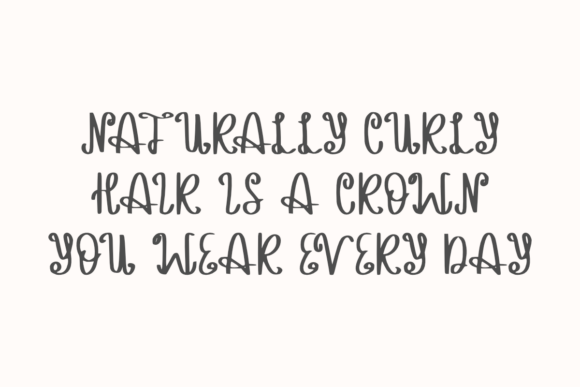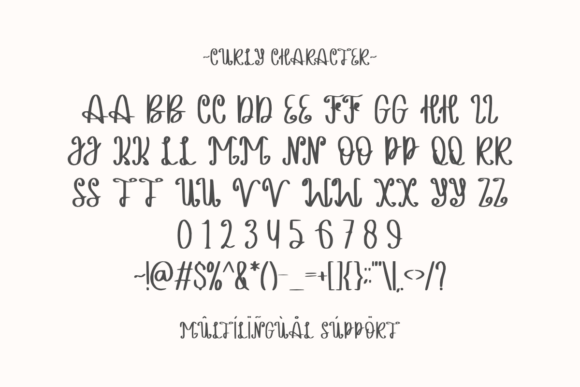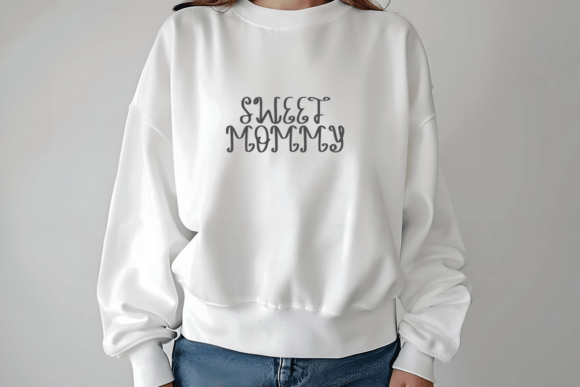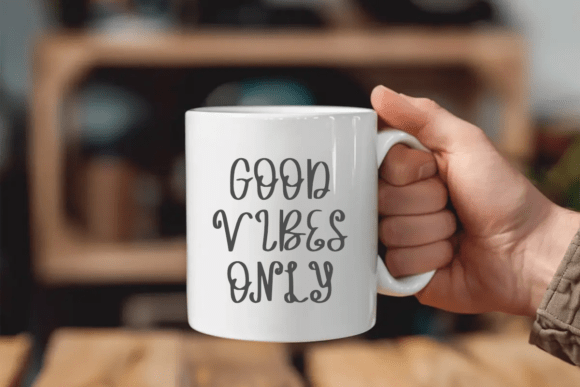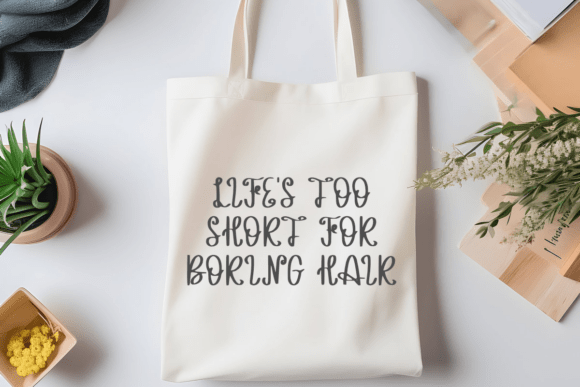
Introducing Curly Font: The Perfect Handwriting Font for Creative Moms
Are you a creative mom who loves DIY projects, journaling, and crafting with your Cricut machine? Look no further! We’re excited to introduce Curly Font, a cute and playful handwriting font that’s perfect for planners, stickers, cards, quotes, and craft projects. In this article, we’ll explore the features and benefits of Curly Font, and show you how it can elevate your creative projects.
What is Curly Font?
Curly Font is a handwriting font that’s designed to add a touch of whimsy and playfulness to your projects. With its curly and swirly letters, this font is sure to capture the hearts of creative moms who love making things by hand. Whether you’re creating a planner, a sticker, or a card, Curly Font is the perfect choice for adding a personal touch.
Features of Curly Font
- Cute and Playful: Curly Font is designed to be fun and playful, making it perfect for projects that require a personal touch.
- Handwriting Style: This font is a true handwriting font, with each letter carefully crafted to resemble handwritten script.
- Versatile: Curly Font can be used for a wide range of projects, from planners and stickers to cards and quotes.
- Easy to Read: Despite its curly and swirly design, Curly Font is easy to read, making it perfect for projects that require a clear and legible font.
Benefits of Using Curly Font
So why should you choose Curly Font for your projects? Here are just a few benefits of using this adorable font:
- Adds a Personal Touch: Curly Font adds a personal touch to your projects, making them feel more handmade and special.
- Perfect for DIY Projects: This font is ideal for DIY projects, such as crafting, journaling, and scrapbooking.
- Great for Cricut Crafts: Curly Font is a great choice for Cricut crafts, such as cutting out letters and words for signs, cards, and other projects.
- Inspires Creativity: With its playful and whimsical design, Curly Font is sure to inspire creativity and encourage you to try new things.
Using Curly Font in Your Projects
So how can you use Curly Font in your projects? Here are a few ideas to get you started:
- Planners: Use Curly Font to add a personal touch to your planner, including headings, titles, and notes.
- Stickers: Create custom stickers with Curly Font, perfect for decorating your journal or planner.
- Cards: Use Curly Font to create beautiful and personalized cards for special occasions.
- Quotes: Add Curly Font to your favorite quotes, making them perfect for displaying in your home or office.
Tips and Tricks for Working with Curly Font
Here are a few tips and tricks for working with Curly Font:
- Experiment with Sizes: Try out different sizes of Curly Font to see what works best for your project.
- Pair with Other Fonts: Pair Curly Font with other fonts to create a unique and interesting look.
- Use in Combination with Images: Use Curly Font in combination with images, such as photos or illustrations, to add an extra layer of interest.
In conclusion, Curly Font is a cute and playful handwriting font that’s perfect for creative moms who love DIY projects, journaling, and Cricut crafts. With its curly and swirly design, this font adds a personal touch to any project, making it feel more handmade and special. Whether you’re creating a planner, sticker, card, or quote, Curly Font is the perfect choice. So why not give it a try and see what amazing projects you can create?